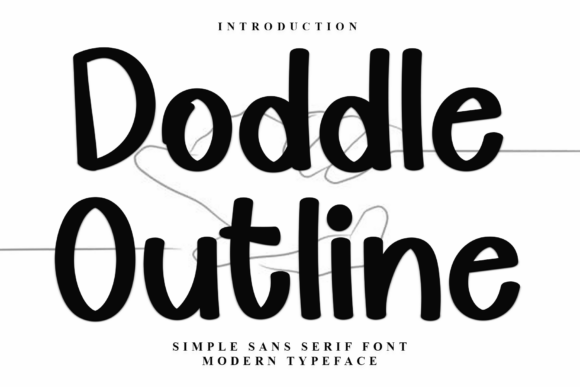
Doddle Outline Font: A Festive and Merry Typeface for the Holiday Season
The holiday season is upon us, and with it comes the need for festive and merry designs that capture the spirit of the season. If you’re looking for a typeface that embodies the magic of Christmas, look no further than the Doddle Outline Font. This decorative font is perfect for adding a touch of enchantment to your designs, whether you’re creating greeting cards, gift tags, or holiday-themed projects.
What is Doddle Outline Font?
Doddle Outline Font is a unique and whimsical typeface that is sure to bring a cheerful and nostalgic ambiance to your words. With its decorative elements and festive flair, this font is perfect for anyone looking to add a touch of holiday magic to their designs. The font is designed to be eye-catching and fun, making it perfect for use in a variety of applications, from holiday greeting cards to festive gift tags.
Key Features of Doddle Outline Font
So, what makes Doddle Outline Font so special? Here are just a few of the key features that set this font apart:
- Festive and Merry Design: Doddle Outline Font is designed to capture the spirit of the holiday season, with a festive and merry design that’s sure to put a smile on anyone’s face.
- Decorative Elements: The font features decorative elements and whimsical flair, adding a touch of enchantment to your designs.
- Perfect for Holiday Projects: Whether you’re creating greeting cards, gift tags, or holiday-themed projects, Doddle Outline Font is the perfect choice.
Uses for Doddle Outline Font
So, how can you use Doddle Outline Font in your designs? Here are just a few ideas to get you started:
- Holiday Greeting Cards: Create festive and merry holiday greeting cards that are sure to delight your friends and family.
- Gift Tags: Add a touch of holiday magic to your gift tags with Doddle Outline Font.
- Holiday-Themed Projects: Whether you’re creating a holiday-themed website, social media post, or marketing campaign, Doddle Outline Font is the perfect choice.
- Christmas Decorations: Use Doddle Outline Font to create festive and merry Christmas decorations, such as holiday banners and signs.
Benefits of Using Doddle Outline Font
So, why should you choose Doddle Outline Font for your holiday designs? Here are just a few benefits of using this festive and merry typeface:
- Adds a Touch of Enchantment: Doddle Outline Font adds a touch of enchantment to your designs, making them more eye-catching and fun.
- Perfect for Holiday Season: The font is specifically designed for the holiday season, making it the perfect choice for any holiday-themed project.
- Unique and Whimsical Design: The font features a unique and whimsical design that’s sure to stand out from the crowd.
Tips for Using Doddle Outline Font
Here are a few tips for using Doddle Outline Font in your designs:
- Use it Sparingly: While Doddle Outline Font is festive and merry, it can be overwhelming if used too much. Use it sparingly to add a touch of holiday magic to your designs.
- Pair it with Other Fonts: Consider pairing Doddle Outline Font with other fonts to create a unique and eye-catching design.
- Experiment with Colors: Don’t be afraid to experiment with different colors and textures to add depth and interest to your designs.
- Have Fun: Most importantly, have fun with Doddle Outline Font! The font is designed to be playful and whimsical, so don’t be afraid to get creative.
In conclusion, Doddle Outline Font is a festive and merry typeface that’s perfect for adding a touch of holiday magic to your designs. With its decorative elements and whimsical flair, this font is sure to bring a cheerful and nostalgic ambiance to your words. Whether you’re creating holiday greeting cards, gift tags, or holiday-themed projects, Doddle Outline Font is the perfect choice. So why wait? Download Doddle Outline Font today and let your typography shine with the magic of Beautiful Font!